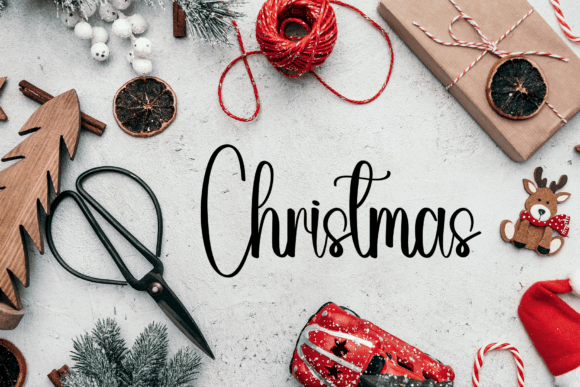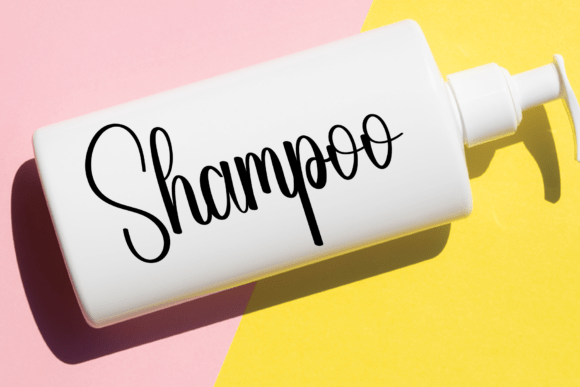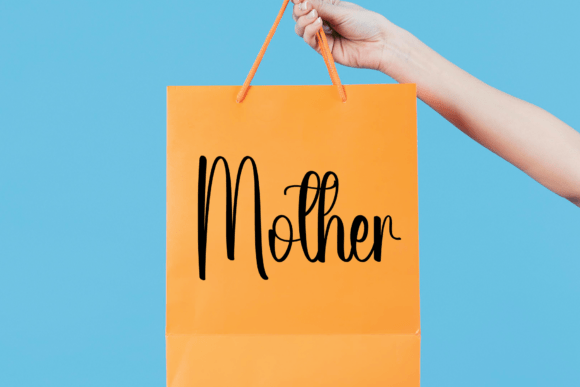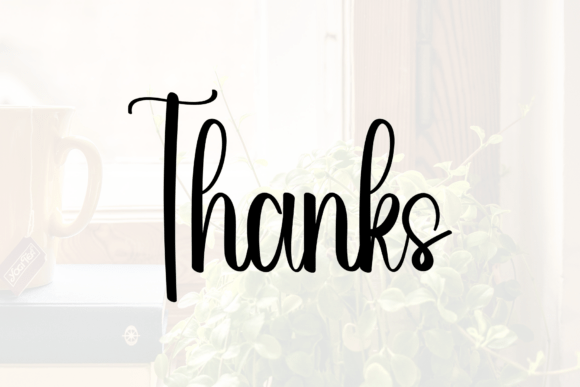
Hello Darling Font: A Charming Handwritten Font for Your Design Projects
Hello Darling is a beautiful, handwritten font that exudes a sense of heartfelt perfection. Its smooth strokes and organic lines create a relaxed atmosphere, making it an ideal choice for a variety of design projects. Whether you’re a designer, crafter, or simply someone who appreciates the art of typography, Hello Darling is sure to capture your heart.
The Characteristics of Hello Darling Font
Hello Darling is a carefully crafted font that boasts a range of characteristics that make it unique and versatile. Some of its key features include:
• Smooth Strokes: The font features smooth, flowing strokes that give it a natural, handwritten feel.
• Organic Lines: The lines in Hello Darling are organic and imperfect, adding to its charm and character.
• Relaxed Atmosphere: The font’s smooth strokes and organic lines evoke a relaxed atmosphere, making it perfect for designs that require a friendly, approachable feel.
• Legibility: Despite its handwritten nature, Hello Darling is highly legible, making it suitable for use in a variety of contexts, from body text to headings.
Uses for Hello Darling Font
Hello Darling is a versatile font that can be used in a wide range of design projects. Some of the most popular uses for this charming font include:
• Branding: Hello Darling is perfect for creating brand identities that require a friendly, approachable feel. Use it for logos, business cards, and other marketing materials.
• Invitations: The font’s elegant, handwritten style makes it ideal for invitations, whether you’re planning a wedding, birthday party, or other special event.
• Social Media Graphics: Hello Darling is a great choice for social media graphics, including Facebook posts, Instagram stories, and Twitter headers.
• Packaging: Use Hello Darling to add a personal touch to your product packaging, making it stand out on store shelves.
• Stationery: The font is perfect for creating custom stationery, including letterheads, notebooks, and journals.
Tips for Using Hello Darling Font
To get the most out of Hello Darling, here are a few tips to keep in mind:
• Pair it with Other Fonts: Hello Darling pairs well with other fonts, including sans-serif and serif fonts. Experiment with different combinations to find the perfect look for your design.
• Use it in Headings: The font’s elegant style makes it perfect for use in headings, where it can add a touch of sophistication and elegance.
• Experiment with Colors: Hello Darling looks great in a range of colors, from bold and bright to soft and pastel. Experiment with different colors to find the perfect look for your design.
• Pay Attention to Spacing: As with any font, pay attention to spacing when using Hello Darling. Make sure to leave enough space between lines and words to ensure legibility.
Hello Darling is a charming handwritten font that is sure to capture your heart. Its smooth strokes and organic lines evoke a relaxed atmosphere, making it perfect for a variety of design projects. Whether you’re a designer, crafter, or simply someone who appreciates the art of typography, Hello Darling is a great choice for adding a personal touch to your designs. With its versatility, legibility, and elegant style, Hello Darling is sure to become a favorite in your font collection.